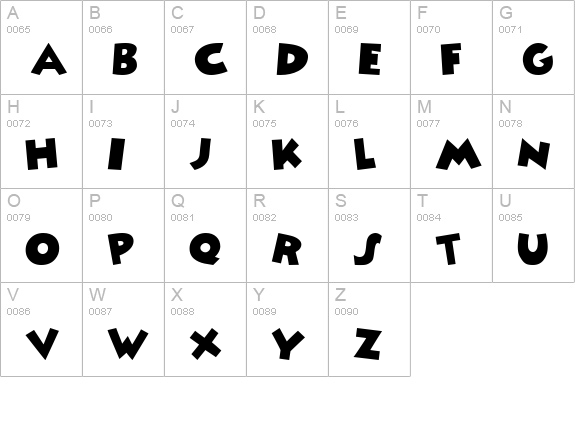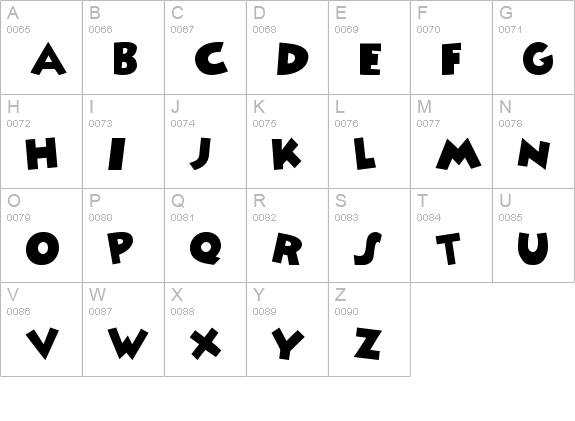
Minnie Font Details
Minnie font is a charming and whimsical typeface that is perfect for adding a touch of playfulness to your designs. With its rounded edges and smooth lines, Minnie font exudes a sense of fun and creativity. Whether you're working on a children's book, a birthday invitation, or a branding project, this font is sure to bring a smile to your audience's face. Best of all, Minnie font is available for free download at FontsMarket.com. Simply head to the website and add this delightful typeface to your collection without any cost. Embrace the joyful spirit of Minnie font in your projects and let your creativity shine!